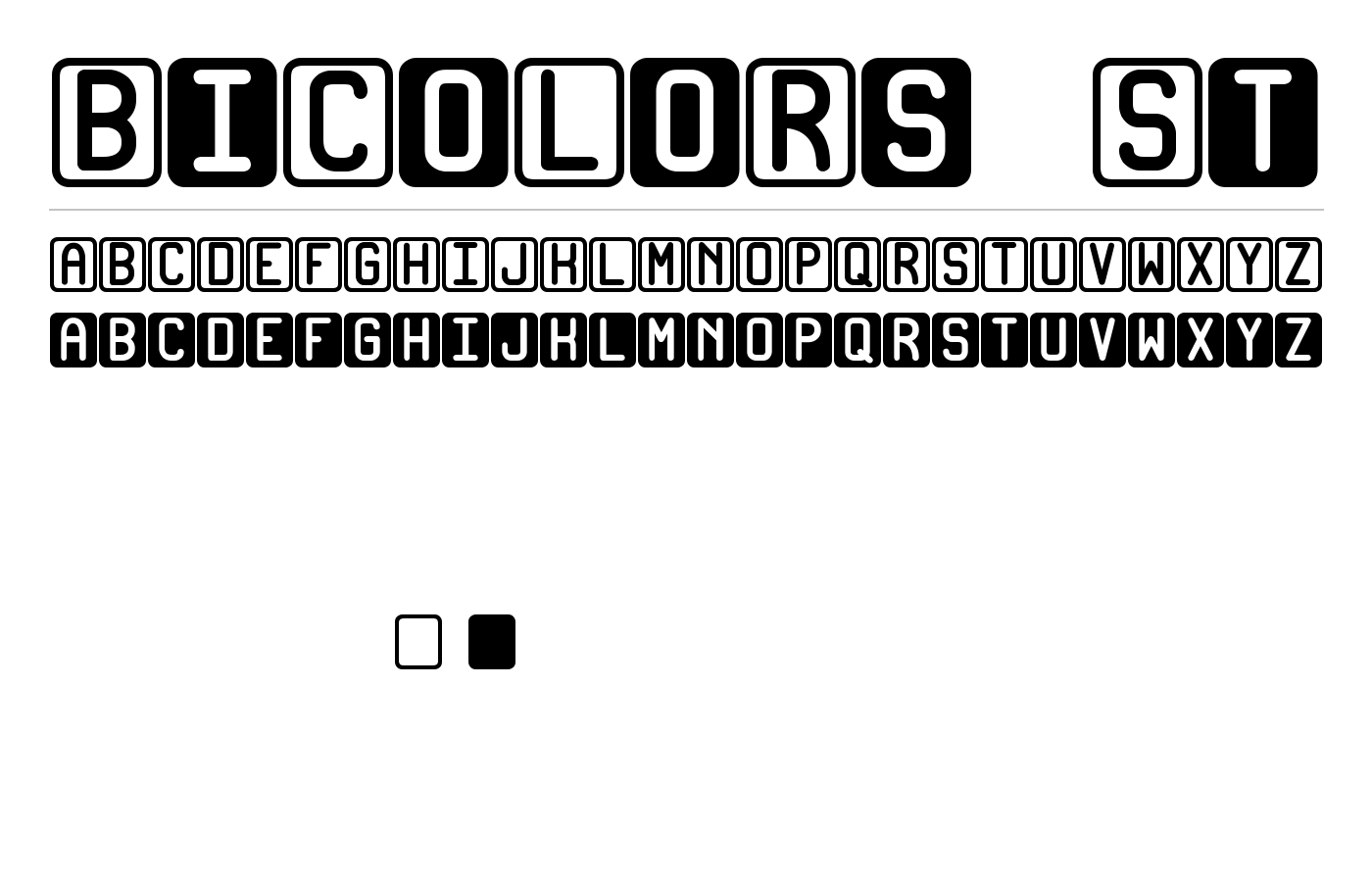
BiCoLoRs St is a playful, bold sans serif font featuring tall, rounded characters enclosed in alternating black and white rectangular blocks. Its unique stencil-like design with consistent stroke weight and geometric shapes makes it perfect for fun, eye-catching headlines, logos, and packaging that need a modern and vibrant feel. This font brings energy and a distinctive visual rhythm, ideal for creative branding and display use.
BiCoLoRs St Font
About BiCoLoRs St Font